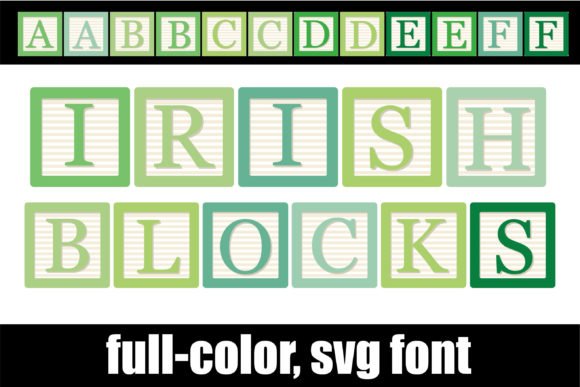
The Joy of Color in Typography: Discovering the Irish Blocks Font
As a designer, there’s nothing quite like the thrill of experimenting with a new font to bring a project to life. You’re scrolling through your font library, and suddenly, a font catches your eye – its youthful blocks and serif lettering seem to dance across the screen, begging to be used. This is exactly what happens when you stumble upon the Irish Blocks Font, a full-color font that adds a touch of whimsy to any design.
This font is more than just a pretty face; it’s a valuable tool for designers looking to add some visual interest to their work. With its OpenType full-color (SVG) capabilities, the Irish Blocks Font can add a whole new level of depth and personality to your designs. Whether you’re working on a logo, poster, or social media graphic, this font is sure to bring a smile to your face and a pop of color to your project.
Irish Blocks Font Key Features
- Font Family: A custom-designed font family with unique Irish-inspired block letterforms.
- Character Set: The font includes a wide range of characters, including uppercase and lowercase letters, numerals, punctuation marks, and special characters.
- Unique Characteristics: The font’s distinctive block letterforms and intricate details evoke a sense of Irish heritage and culture, making it perfect for designs related to Ireland, Celtic art, or traditional Irish themes.
Irish Blocks Font Review
Overall, I’m impressed with the unique charm of Irish Blocks Font. Here’s what I like about it:
- ✨ Uniqueness: Irish Blocks Font stands out with its distinctive, block-like letterforms that evoke the spirit of Celtic knotwork.
- ✨ Versatility: The font works well for titles, headings, and even body text, especially in traditional or vintage-themed designs.
- ✨ Playfulness: Irish Blocks Font adds a touch of whimsy to any design, making it perfect for creative projects or children’s materials.
However, I do see some limitations:
- ⚠️ Readability: The font’s unique style can make it challenging to read, especially in smaller sizes or for extended blocks of text.
- ⚠️ Limited language support: Irish Blocks Font might not be the best choice for multilingual projects, as it’s primarily designed for English language use.
Overall, I think Irish Blocks Font is a great addition to any designer’s toolkit, especially for projects that require a unique, vintage feel. While it may not be suitable for all types of designs, its charm and versatility make it a valuable resource for the right projects.
Tips for Getting the Most Out of Irish Blocks Font
Use Irish Blocks Font to add a unique and playful touch to your designs. Experiment with different font sizes, colors, and styles to create a visually appealing look. This font is particularly effective for headings and titles.
Irish Blocks Font is commonly used in:
- Children’s book illustrations and designs
- Children’s clothing and accessories